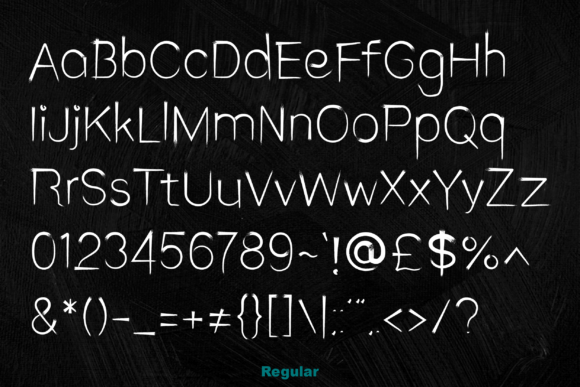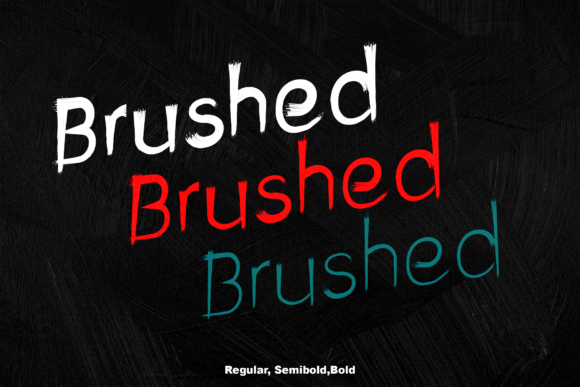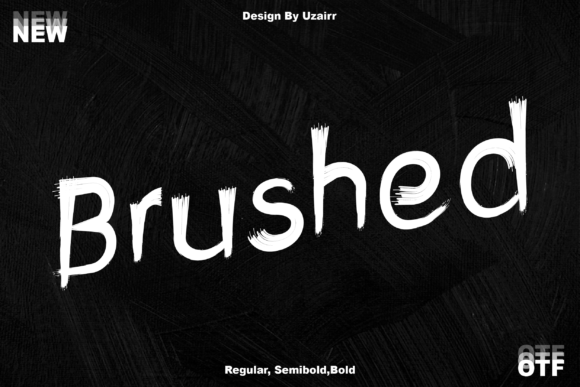
Brushed Font
Designer: Uzairr
Brushed font, a unique creation by the talented Uzairr. Crafted with an artistic touch, this design captures the freedom and spontaneity of a confident brushstroke. Mimicking the authentic and raw qualities of traditional art brush techniques, it’s a perfect combination of organic style and digital precision.
Brushed Design was born in the renowned design software – Adobe Illustrator and further refined under the expert care of Fontself. Designed for versatility, Brushed Design effortlessly adapts to any application to bring a taste of authenticity and character to your digital content. Unleash the potential of your projects with the intriguing charm of Brushed Design.